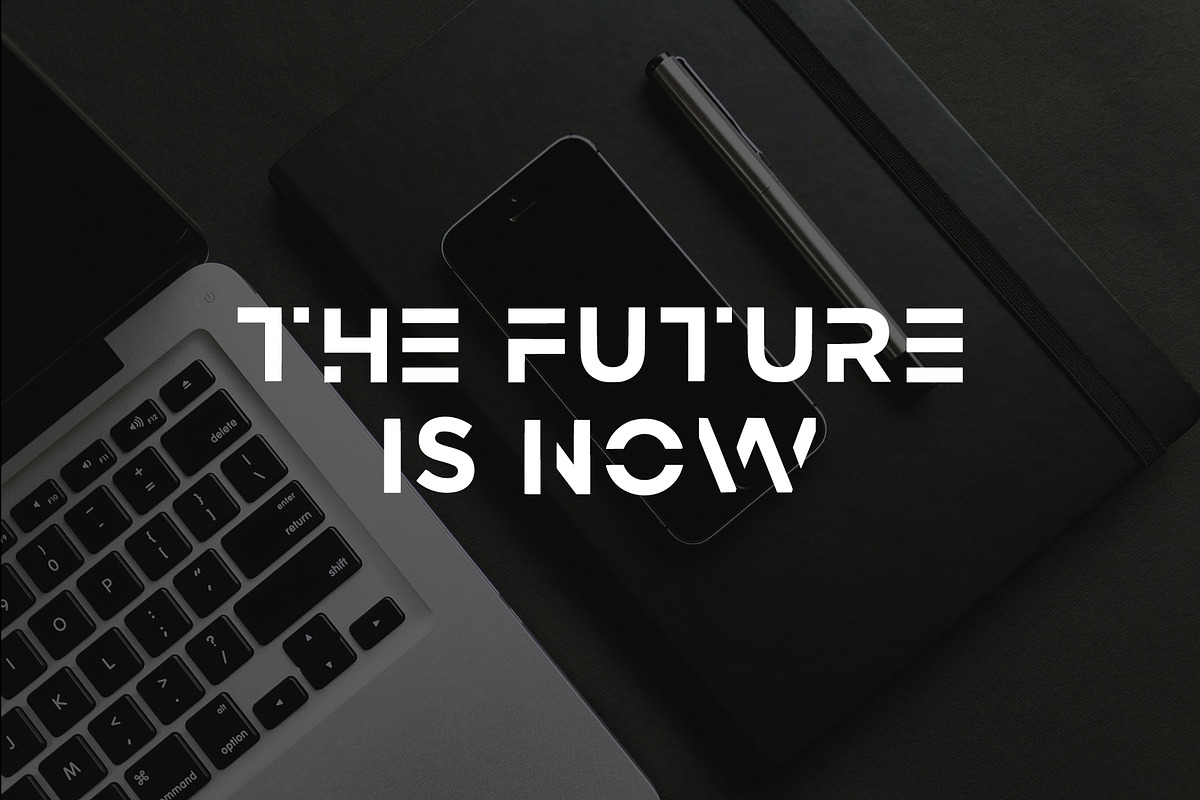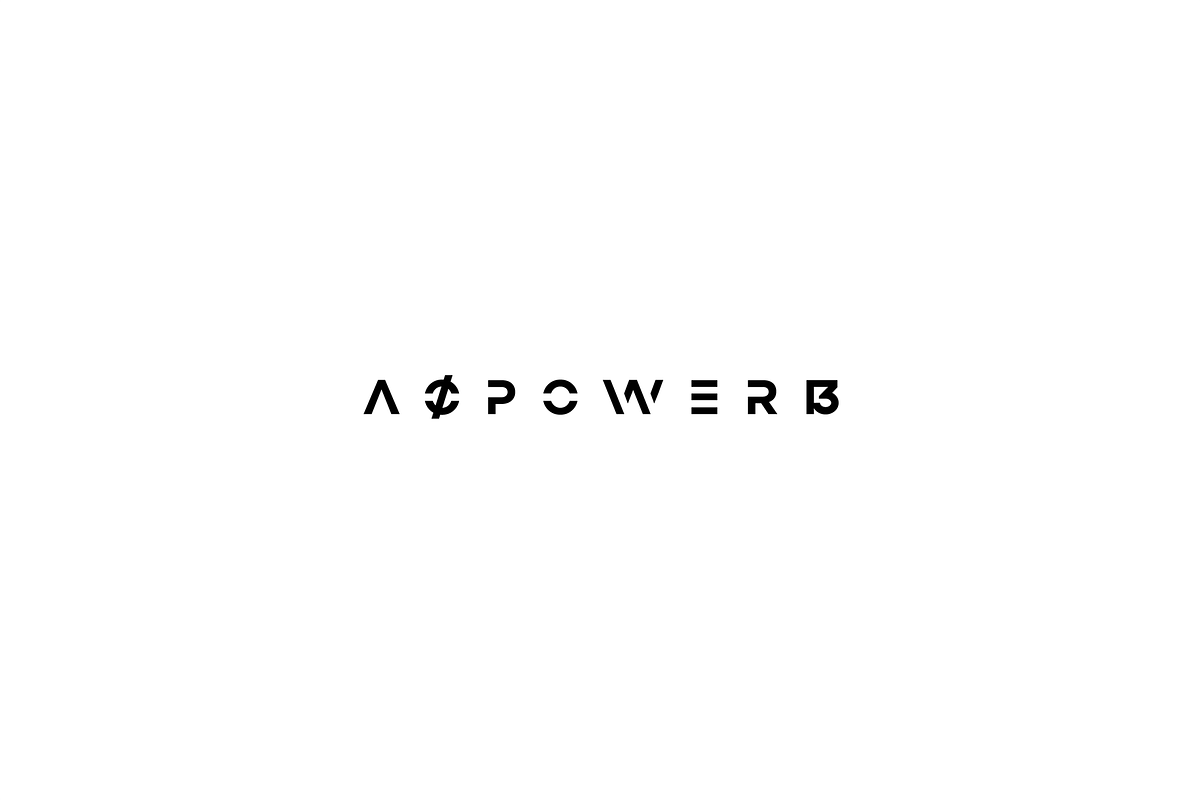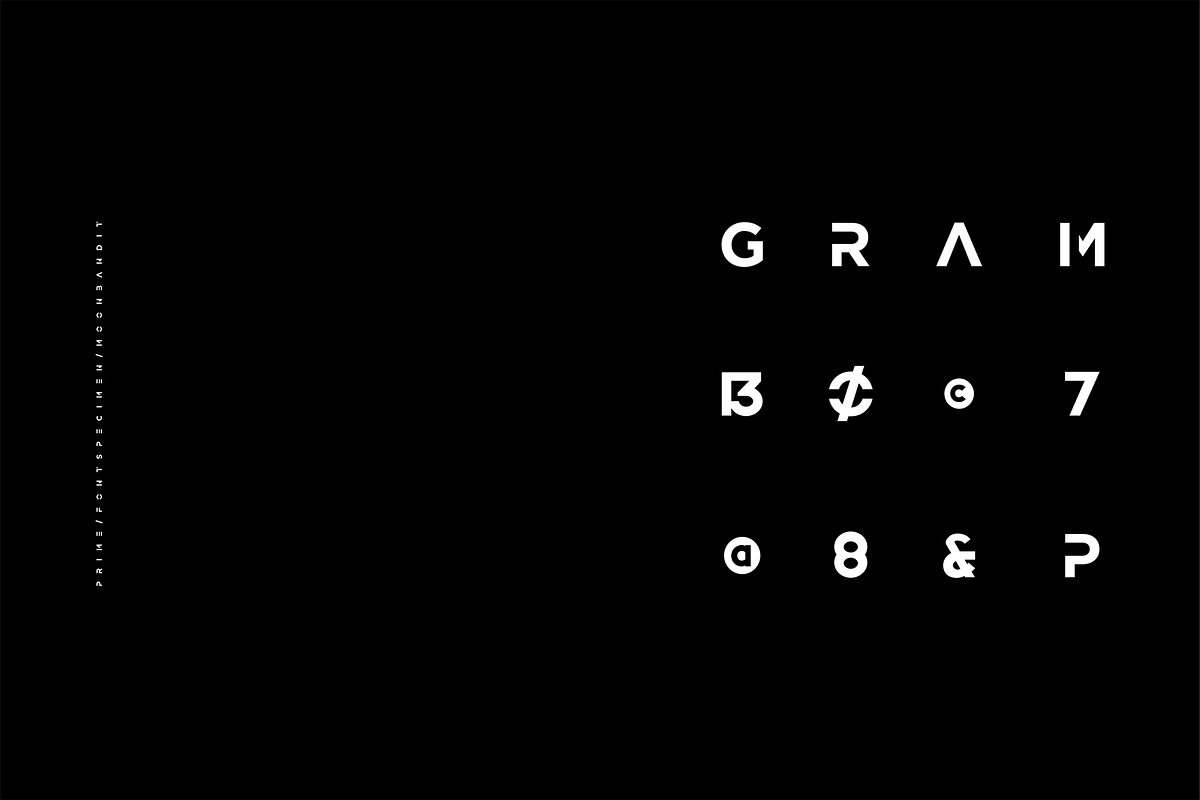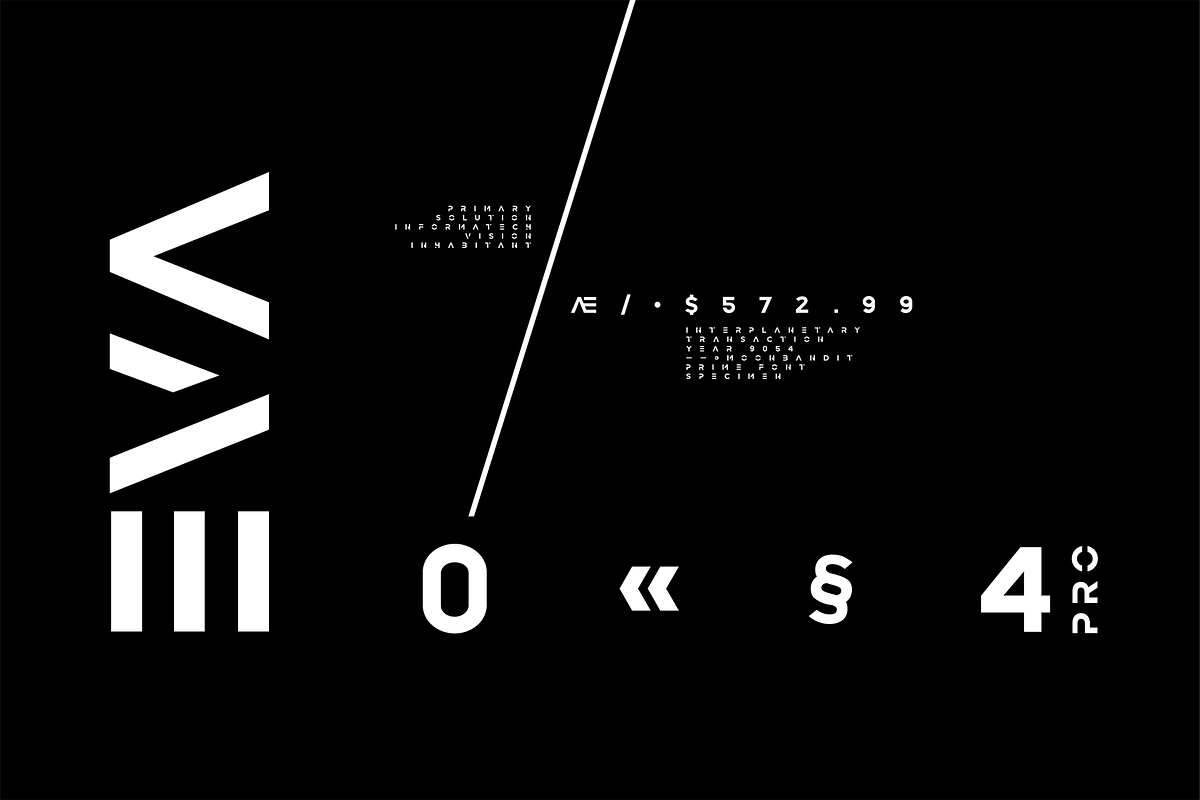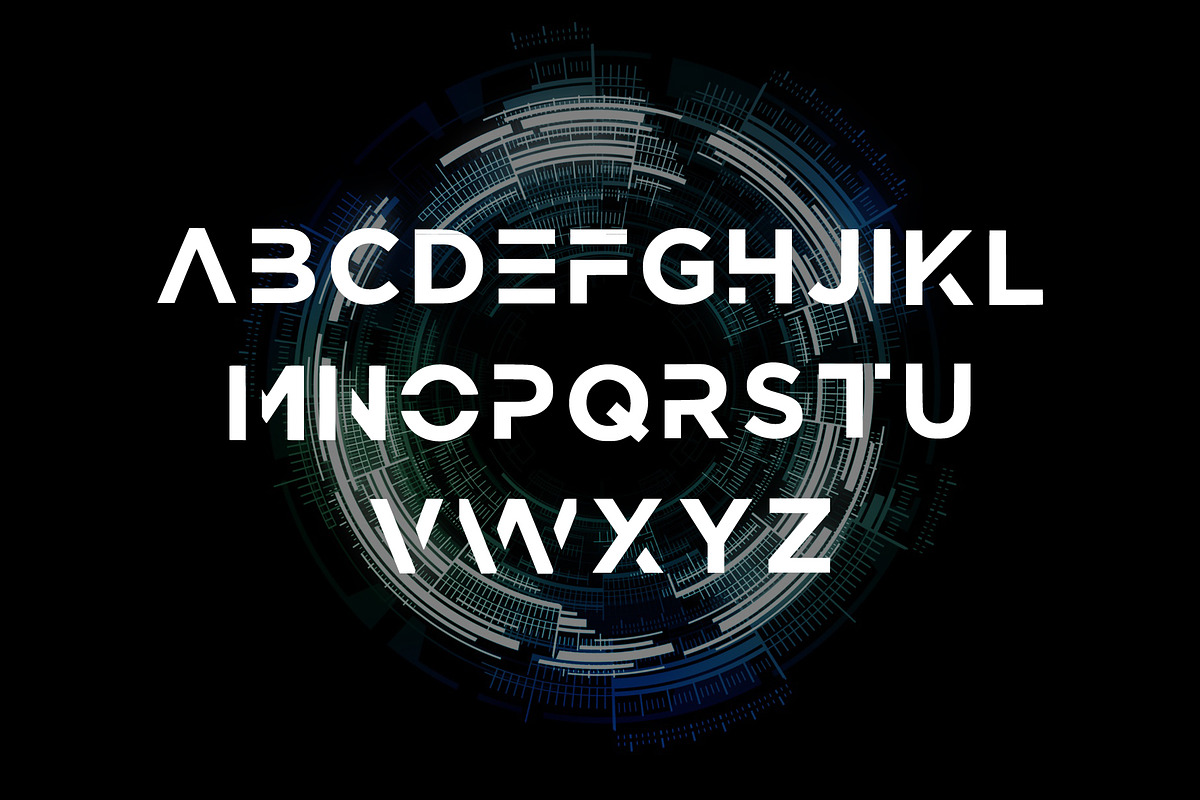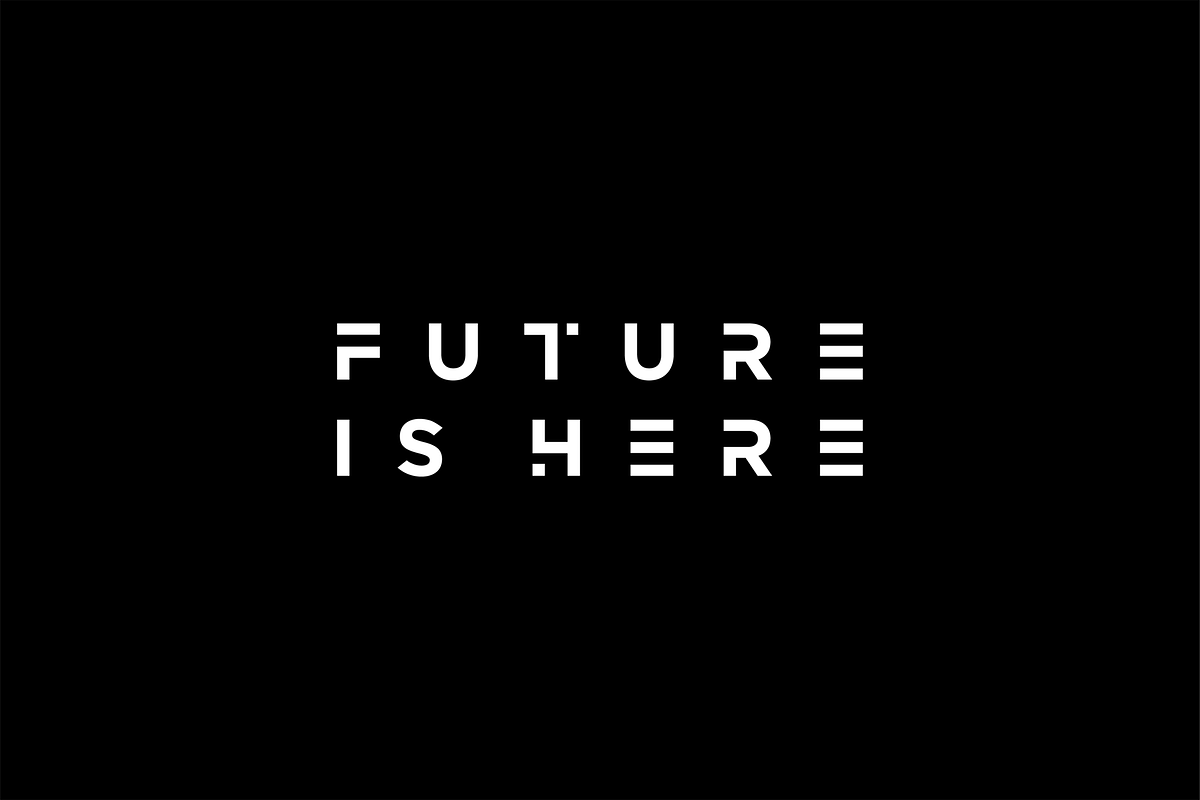
Prime - modern bold Sans Serif Font
A modern bold sans serif vector font
a font with a futuristic edge, geometric corners, perfect for technology theme
Prime - modern bold Sans Serif Font by MoonBandit fits naturally into Branding, posters, packaging, typography.